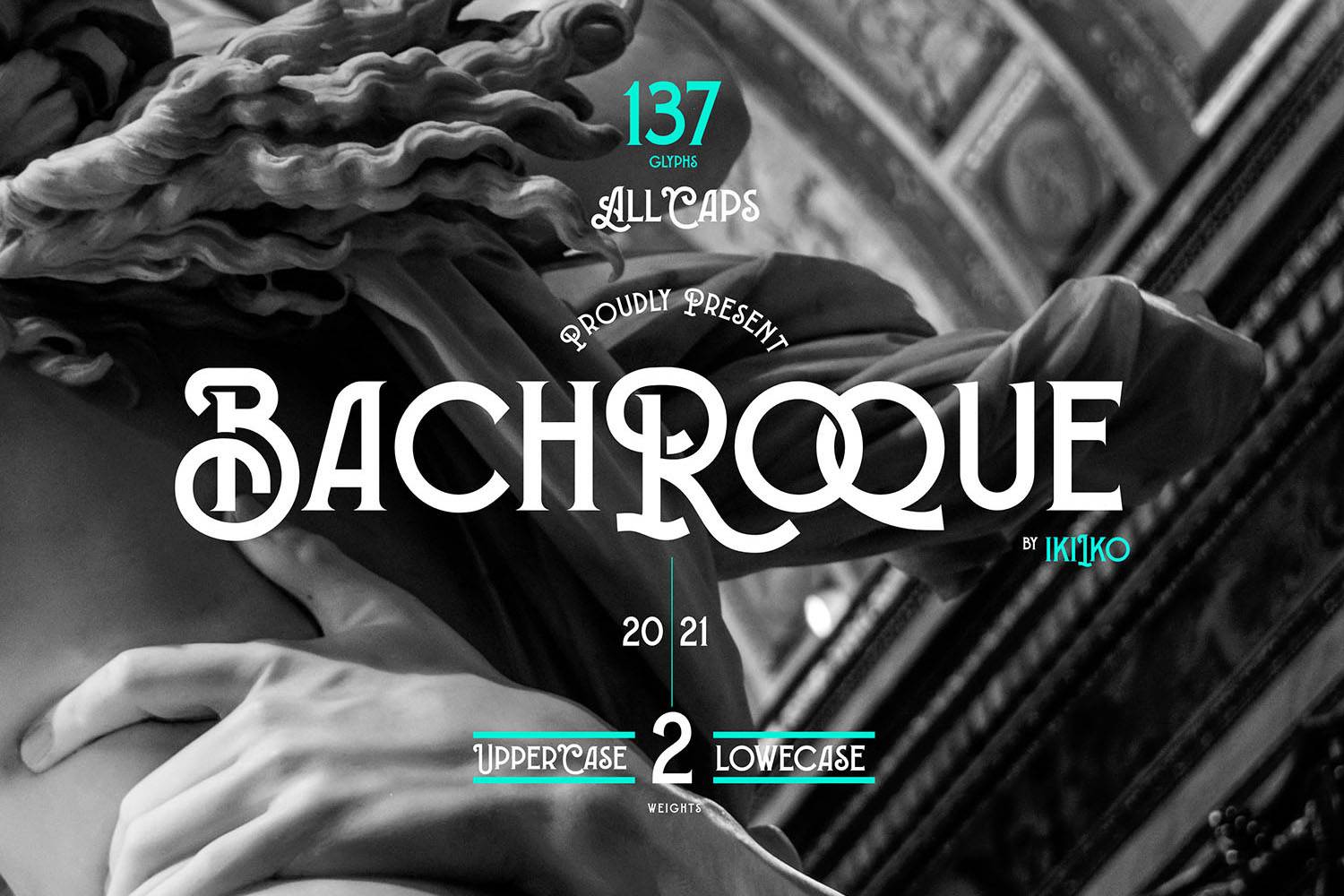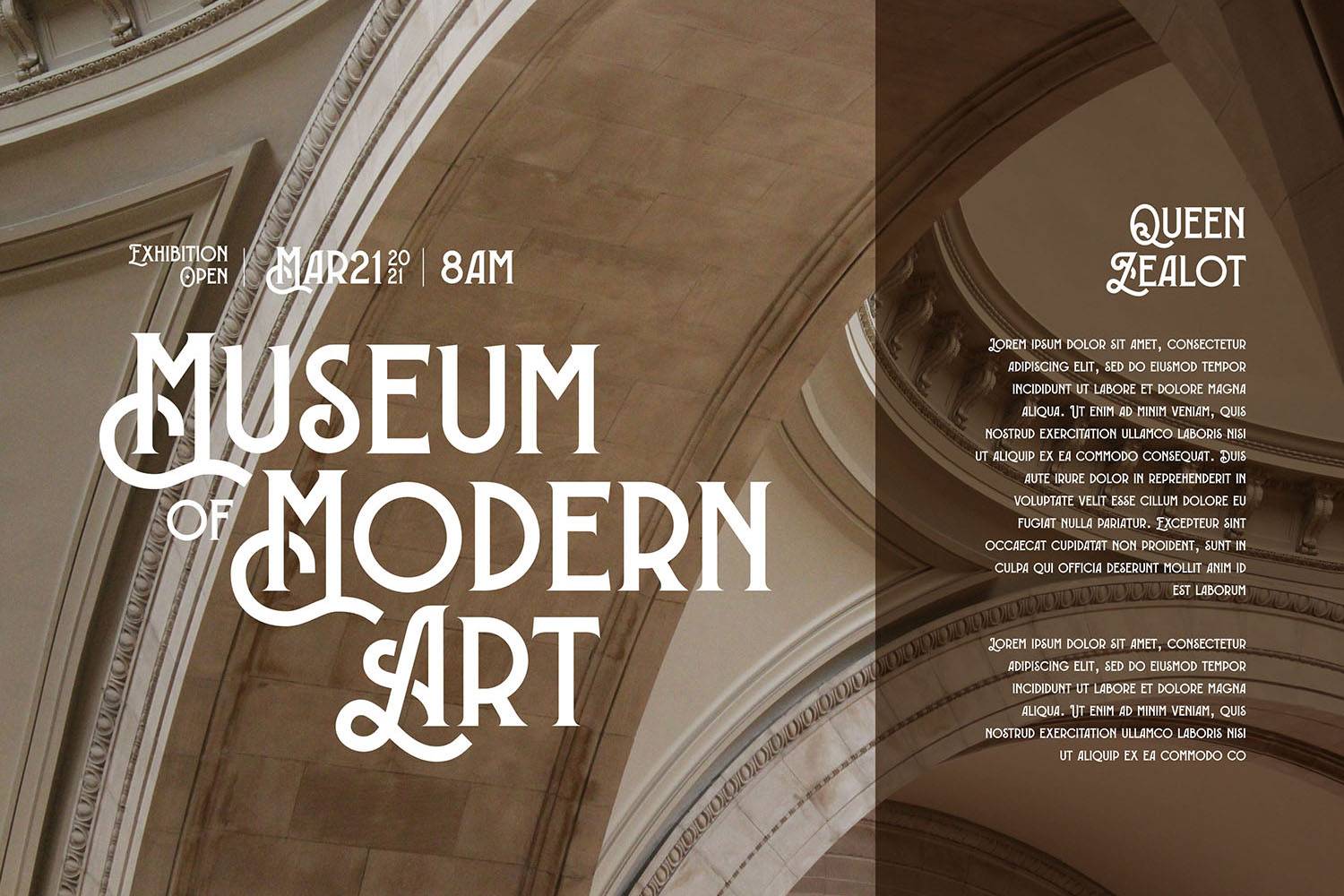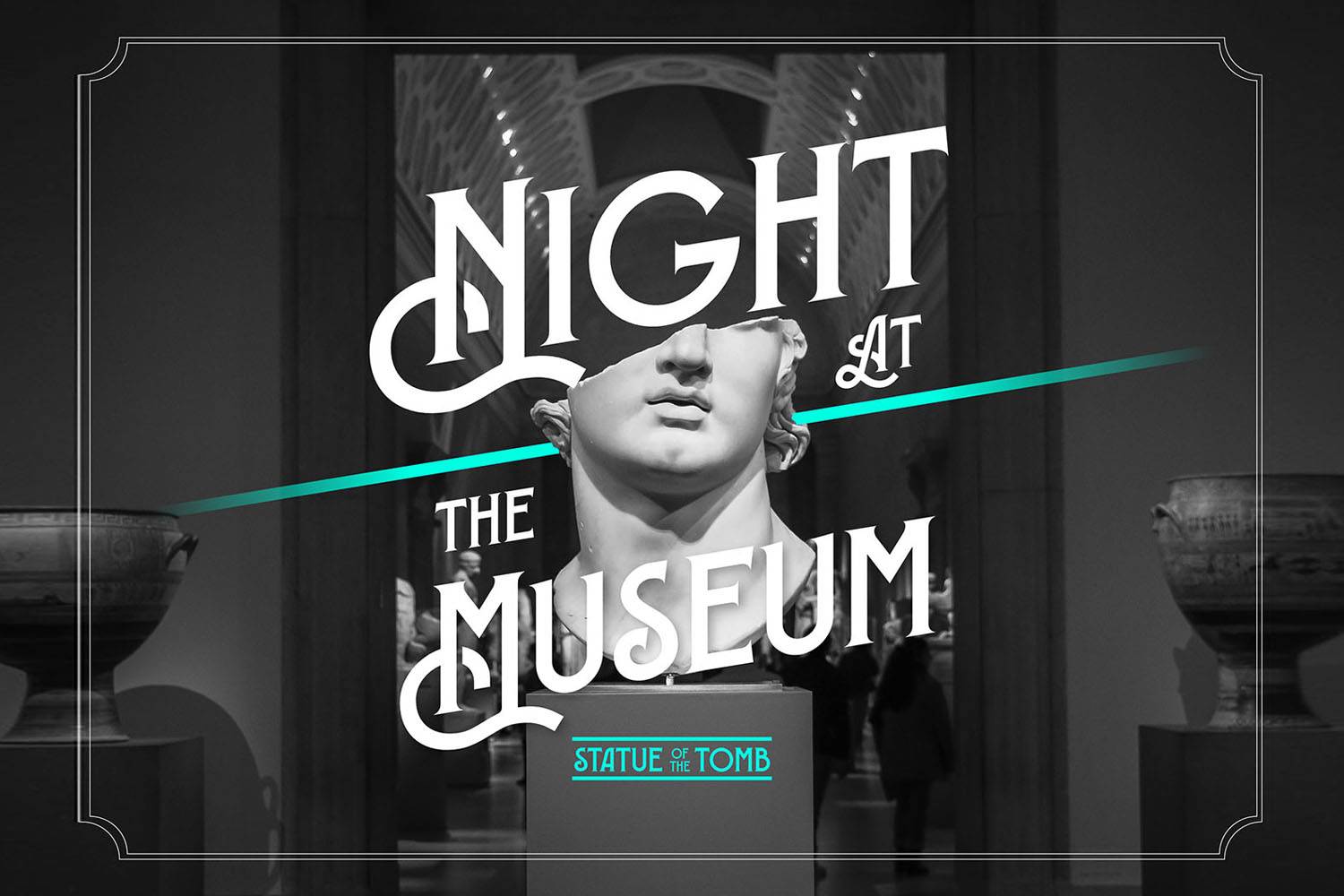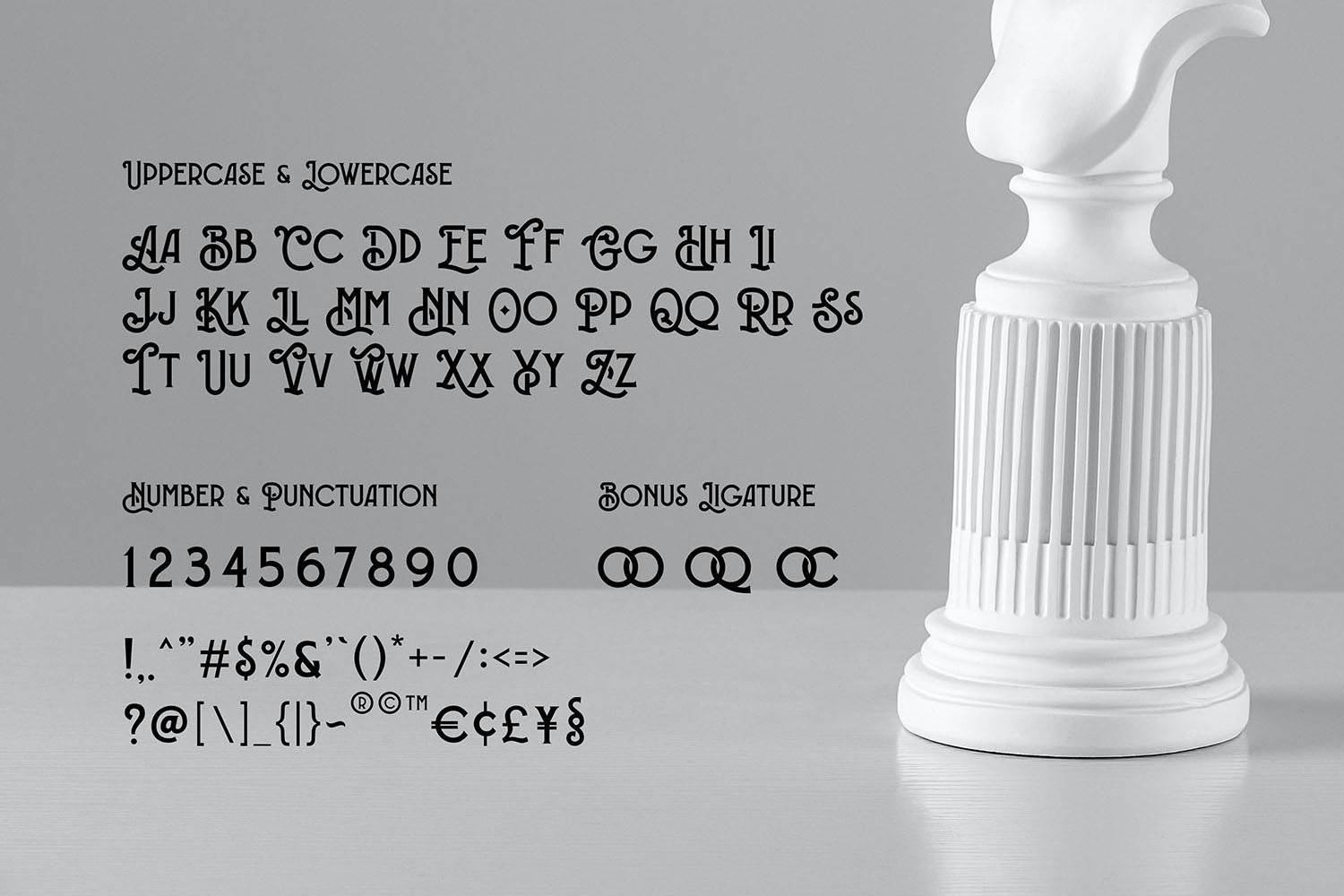
Bachroque is a distinctive serif font with a vintage, ornate flair, blending classic serif structure with playful, decorative swirls that add a unique character. Its medium weight, normal width, and high contrast strokes lend it a sophisticated yet bold presence, making it ideal for eye-catching headlines, logos, and branding that seeks a mix of elegance and creativity. This font works best in fashion, editorial, and artistic contexts where a memorable and stylish impression is desired.
Bachroque Font
About Bachroque Font